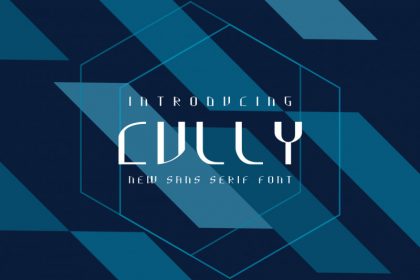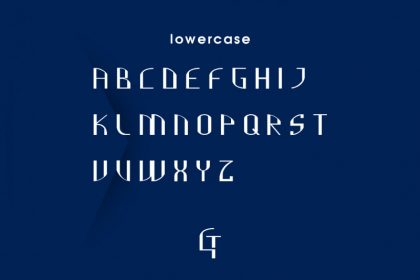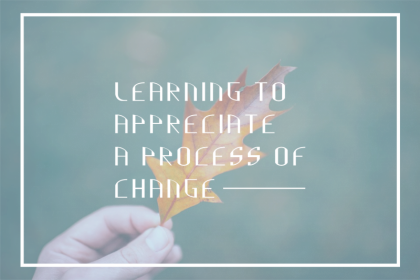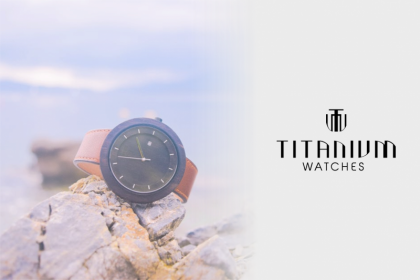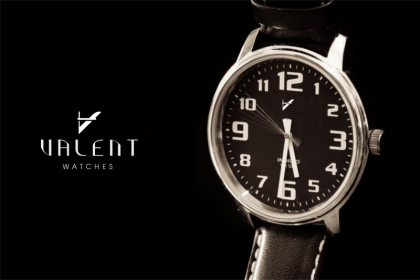
Cully Typeface
Introducing our new reborn font : Cully Typeface! This is a new modern decorative Futuristic Font with fresh and stylish glyph. It’s originally made on 2017 , updated on 2019
Cully Decorative Futuristic Font